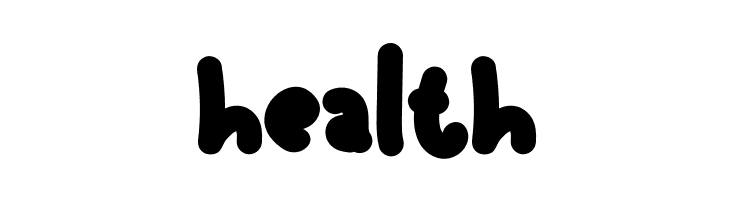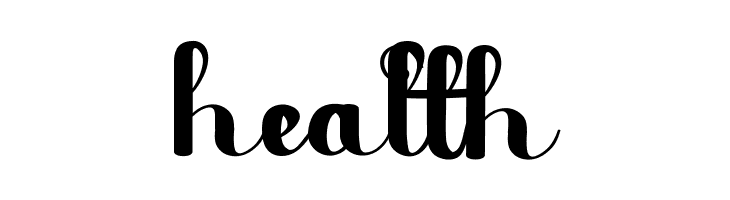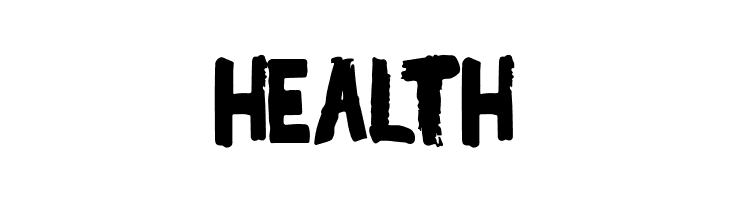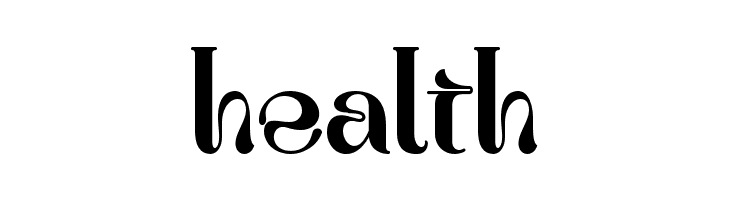
A bold, vintage-inspired font with expressive curves and flourishes.
A bold, distressed font with a textured, stamp-like appearance.
A bold, rough-textured font with a handcrafted look.
A bold, rounded font with a strong and friendly appearance.
A lively, flowing script font with a natural handwriting style.
A playful, bold font with thick, rounded characters ideal for creative projects.
A decorative and elegant font with intricate swirls and high contrast.
A bold, hand-painted style font with an expressive and dynamic appearance.
A bold, decorative font with dynamic curves and sharp edges.
A playful and flowing script font with smooth curves and connected letters.